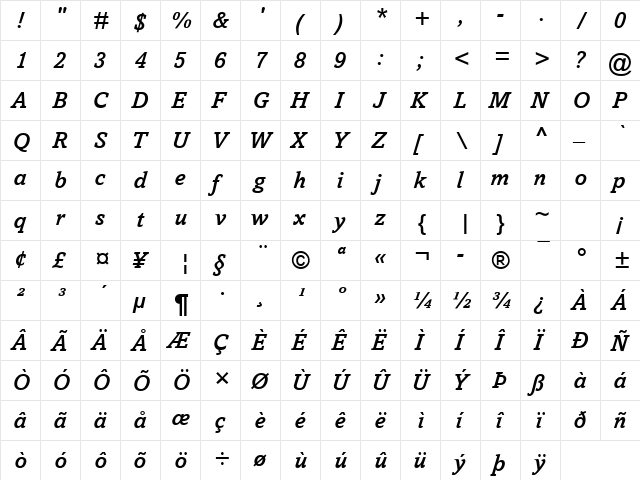
Amasis MT Md Italic
Design Context for Amasis MT Md Typeface
Amasis MT Md offers clean, dependable letterforms without strong stylistic allegiance, making it a practical choice for designers who need flexibility. Its italic angle brings a sense of urgency and motion to the letterforms.
Pro Tip: Try Amasis MT Md for annotation and caption copy alongside an upright companion — the contrast in angle creates a dynamic but ordered typographic system.